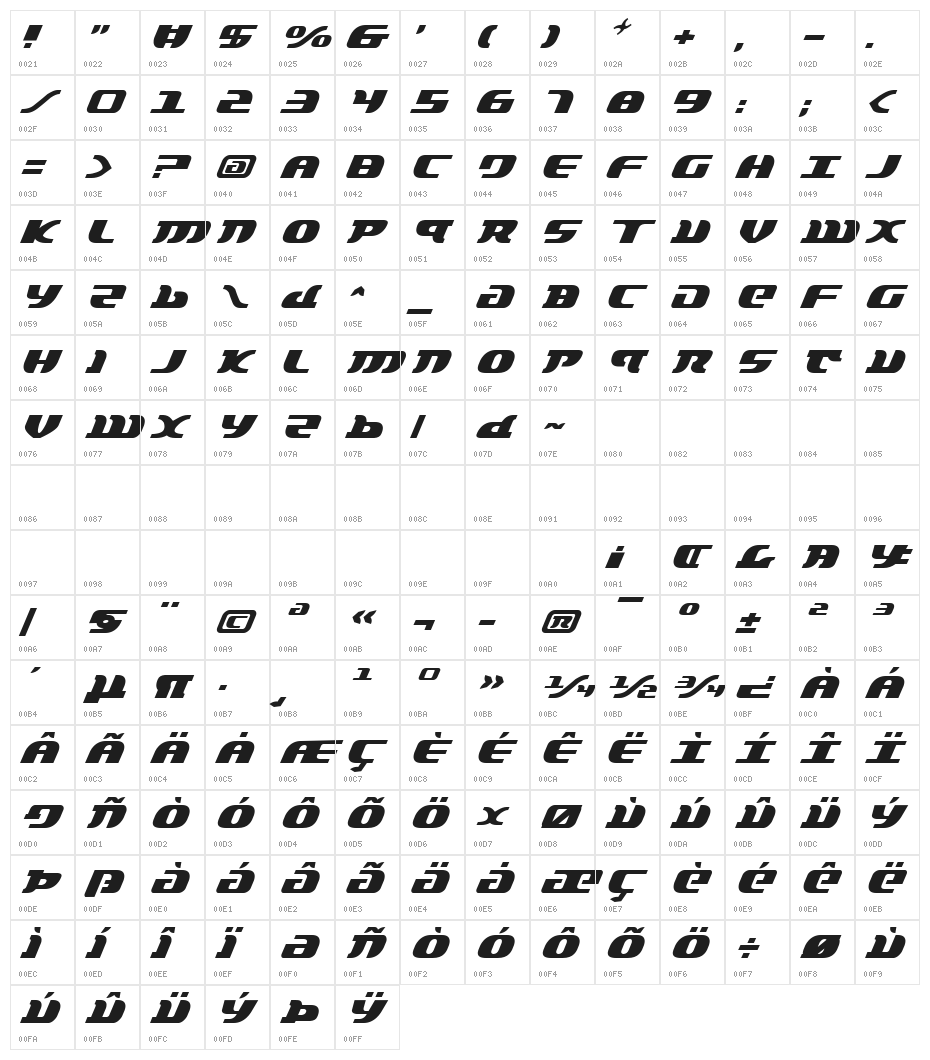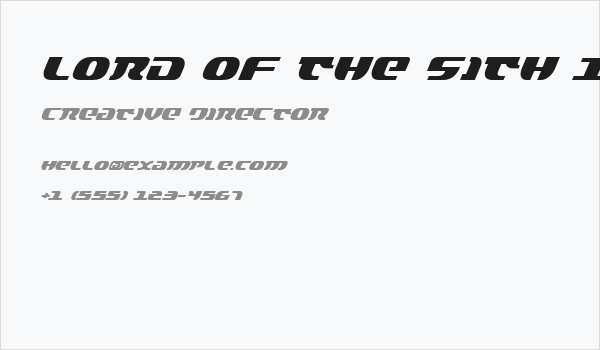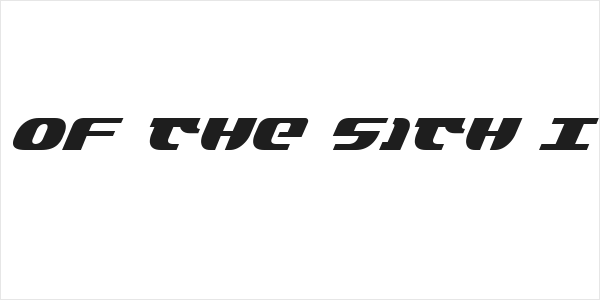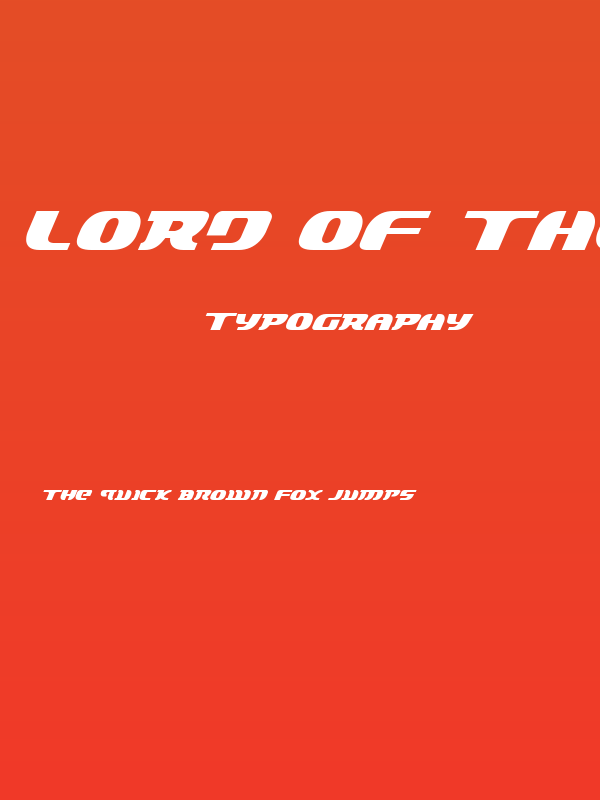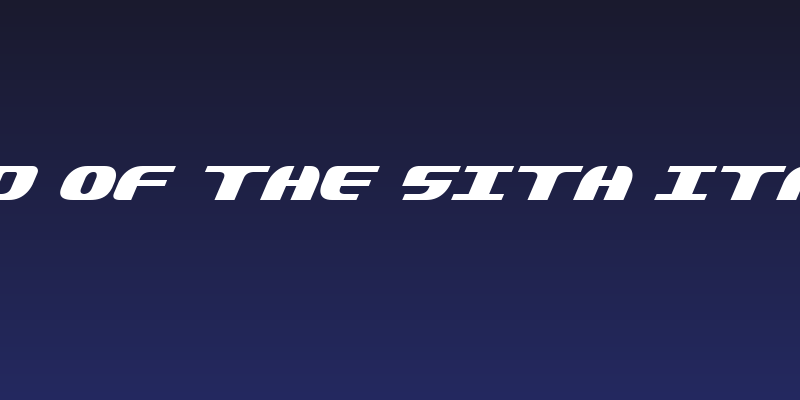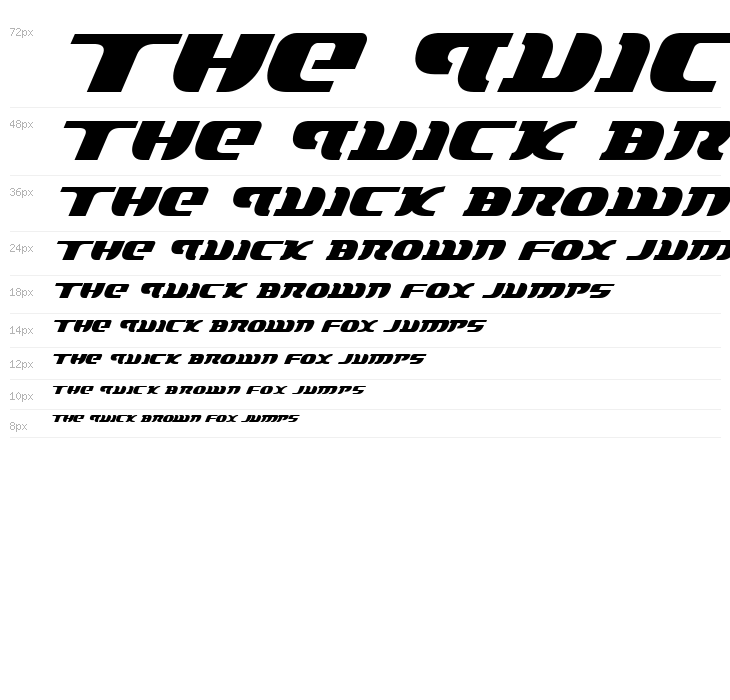
Lord of the Sith Italic Font
Lord of the Sith Italic Description
This font features a bold and dynamic style with a futuristic and aggressive appearance. The characters are italicized, giving a sense of motion and speed. The strokes are thick and consistent, providing a strong visual impact. The design incorporates sharp angles and smooth curves, creating a unique and modern aesthetic. The uppercase and lowercase letters maintain a cohesive look, while the numerals and special characters complement the overall style. This font is ideal for projects that require a bold statement and a touch of modernity.
| Proposed Projects | Ideal for sci-fi themed designs, video game titles, movie posters, and branding that requires a modern and bold look. |